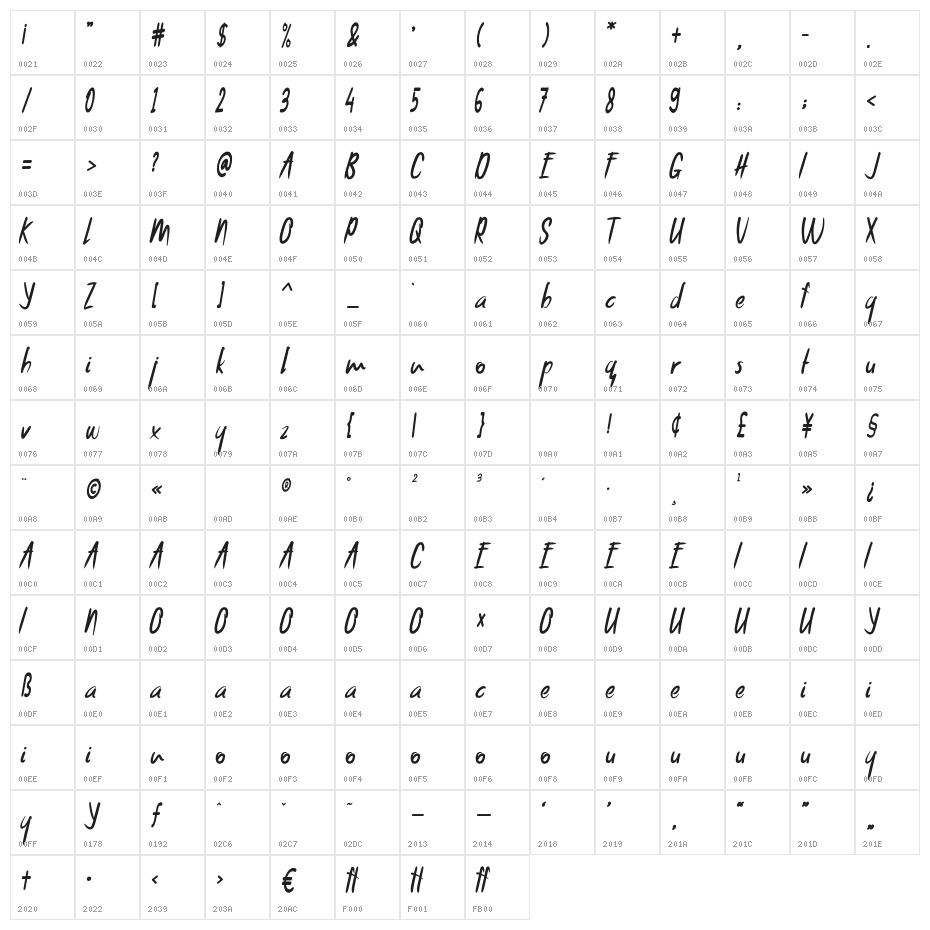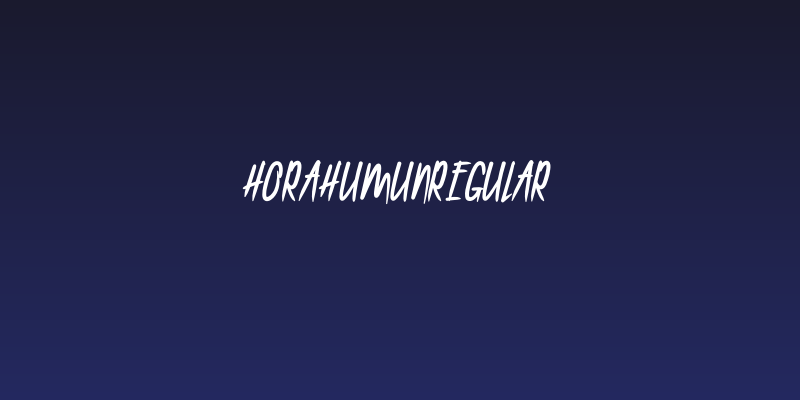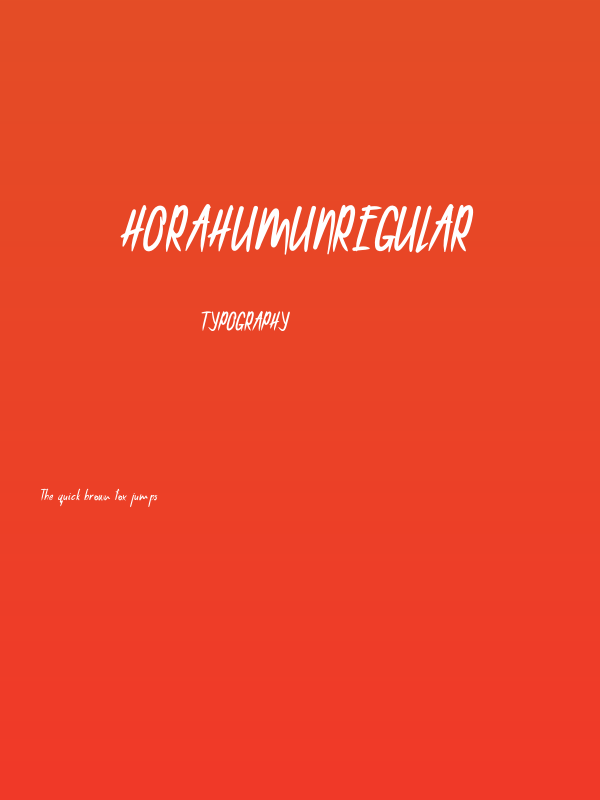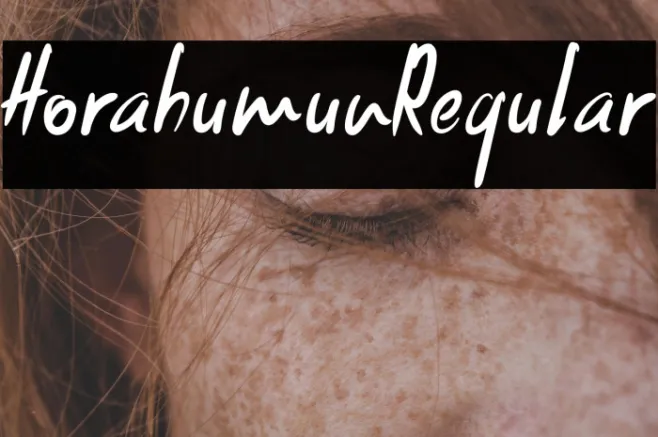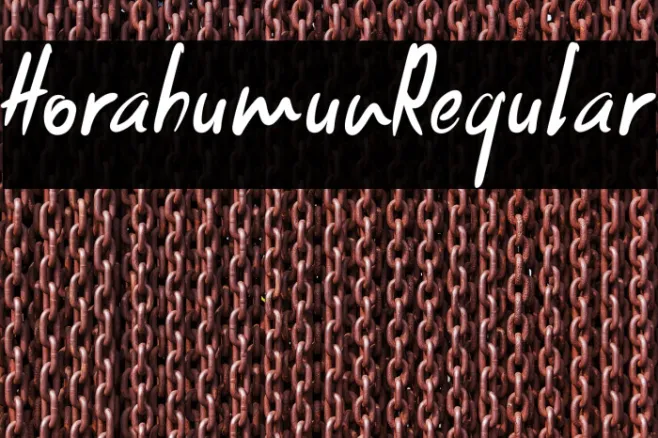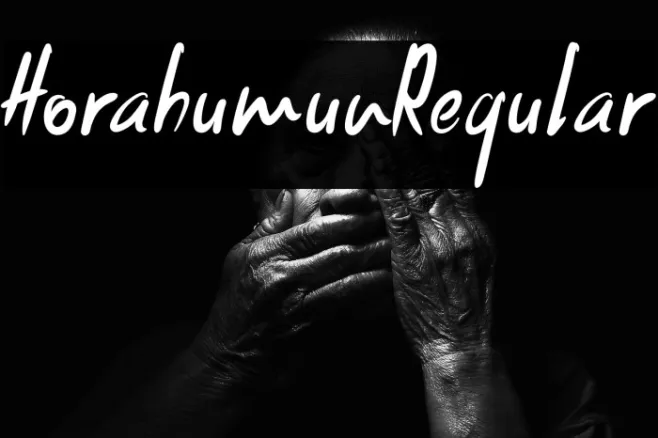
HorahumunRegular Font
HorahumunRegular Description
This font features a dynamic and expressive handwritten style, characterized by its fluid strokes and natural flow. The uppercase letters are bold and slightly slanted, giving a sense of movement and energy. The lowercase letters maintain a consistent style, with smooth curves and a casual feel. Numbers and special characters are crafted to match the overall aesthetic, ensuring a cohesive look. This font's playful and informal nature makes it ideal for projects that require a personal touch.
| Overall Style | Casual, Expressive |
| Proposed Projects | Ideal for greeting cards, invitations, personal branding, and creative projects that require a personal touch. |